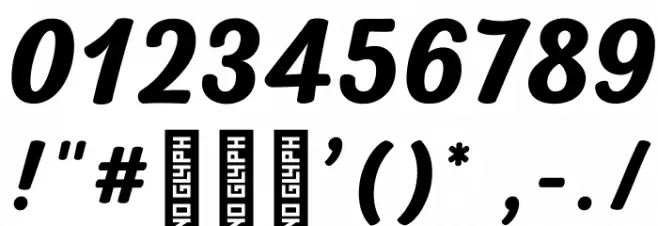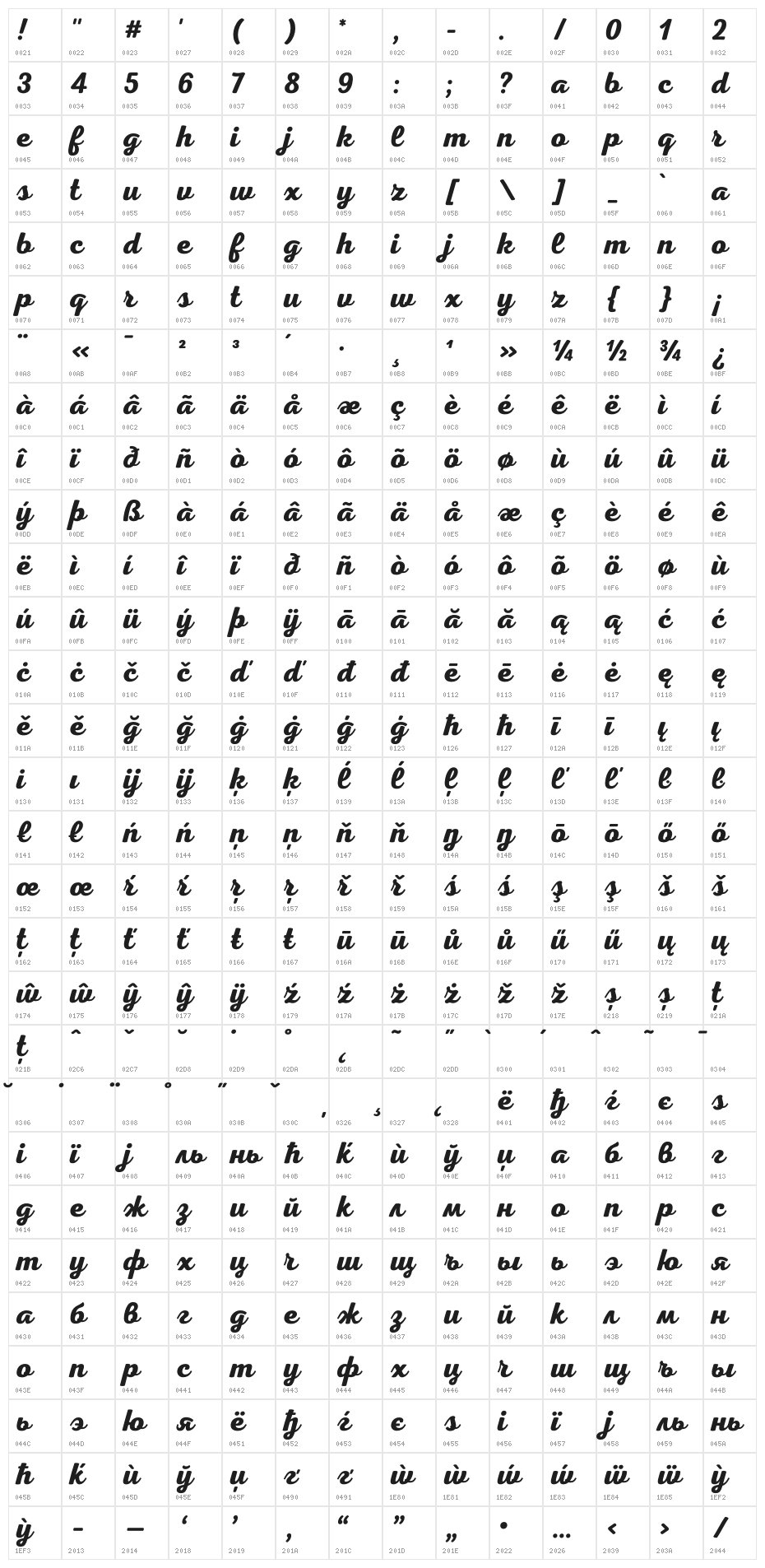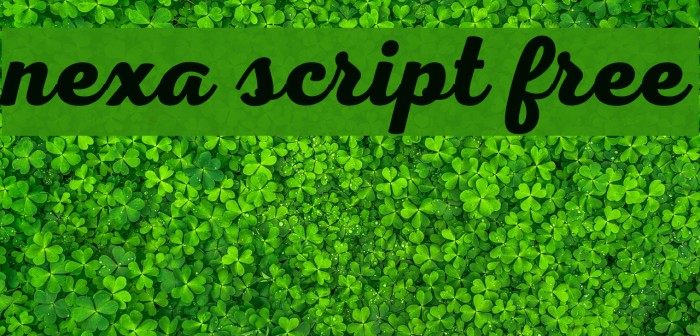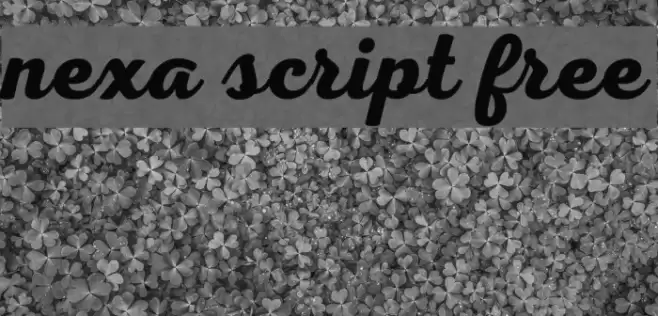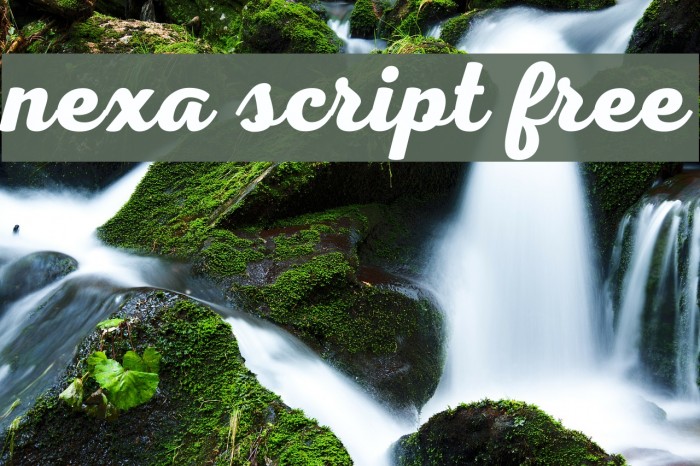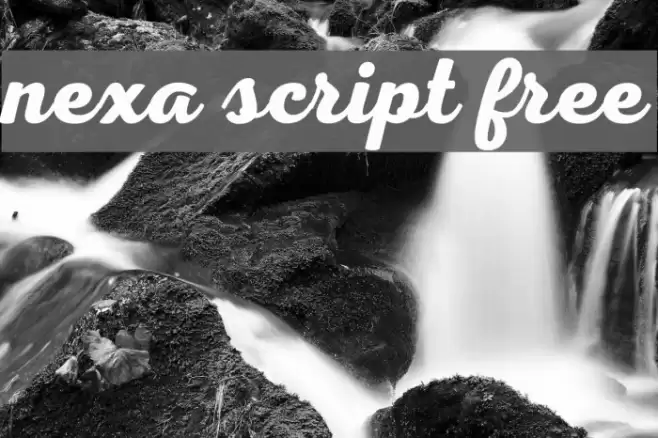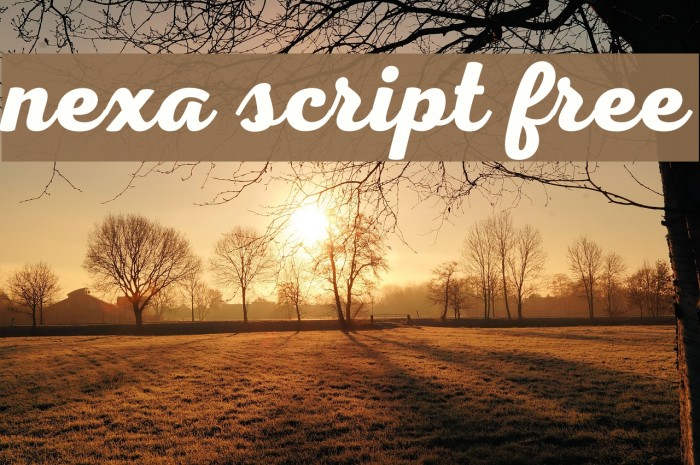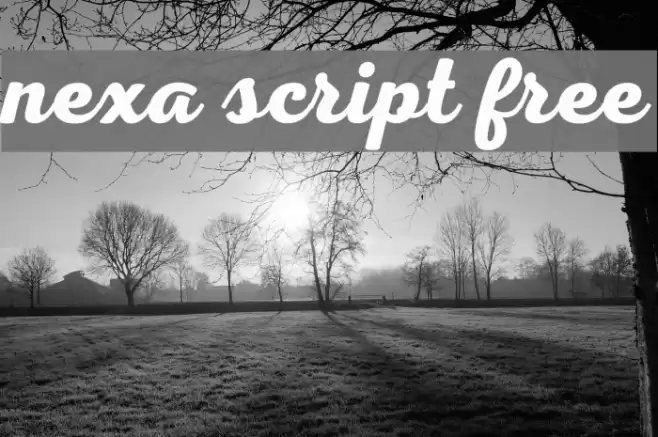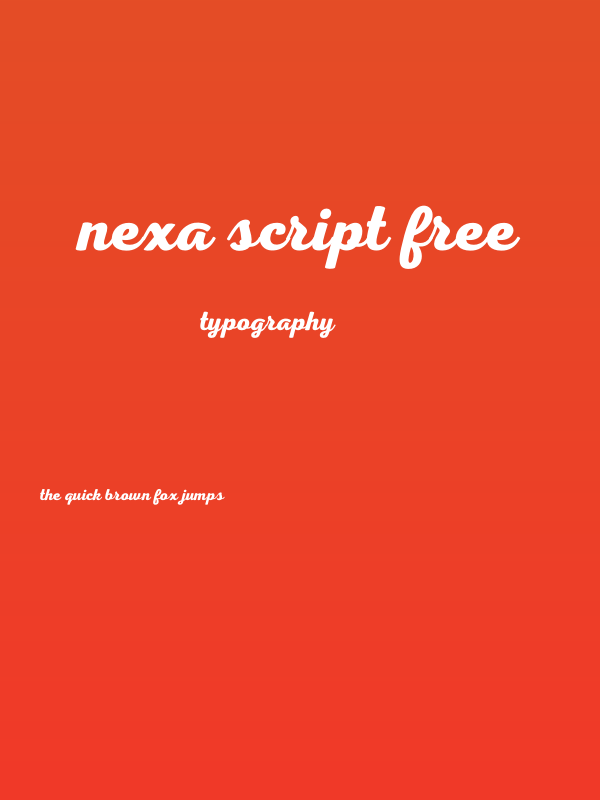
Nexa Script Free Font
Nexa Script Free Description
This font exudes a playful and dynamic energy with its flowing script style. The letters are connected in a smooth, cursive manner, giving it a handwritten feel. The strokes are bold and consistent, providing a sense of uniformity and balance. The characters have a slight slant, enhancing the casual and informal appearance. The numerals are equally bold, maintaining the overall aesthetic. Special characters are designed to match the fluidity of the letters, ensuring a cohesive look across all elements. This font is ideal for projects that require a personal touch or a sense of elegance and creativity.